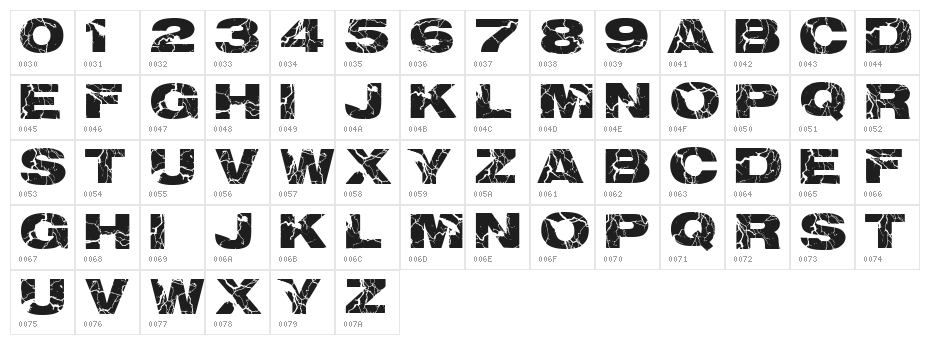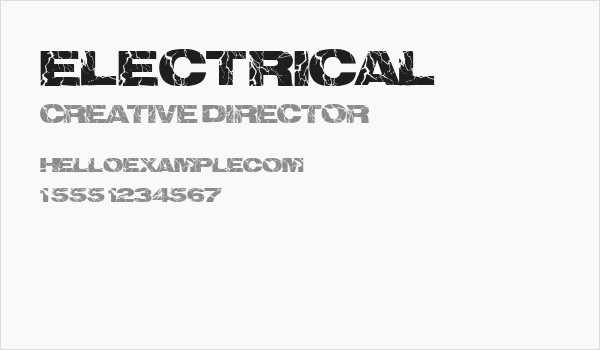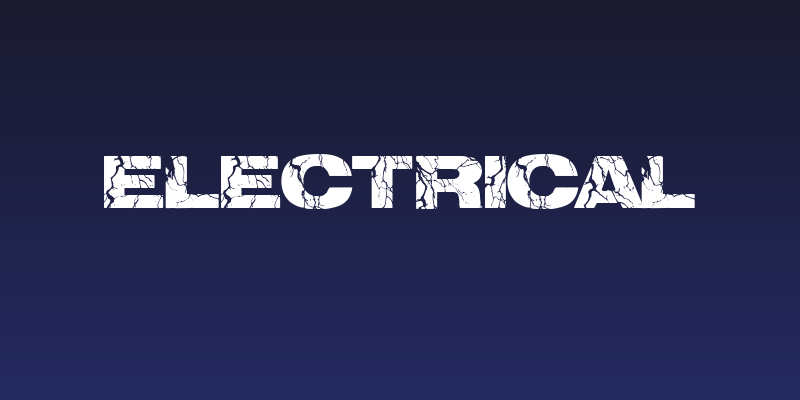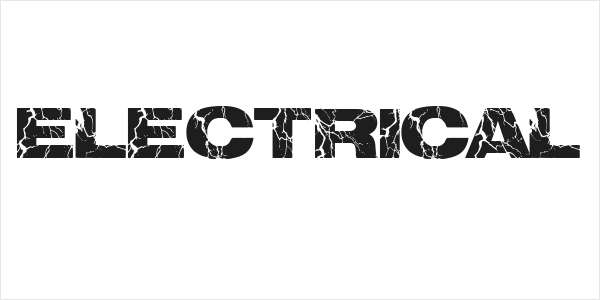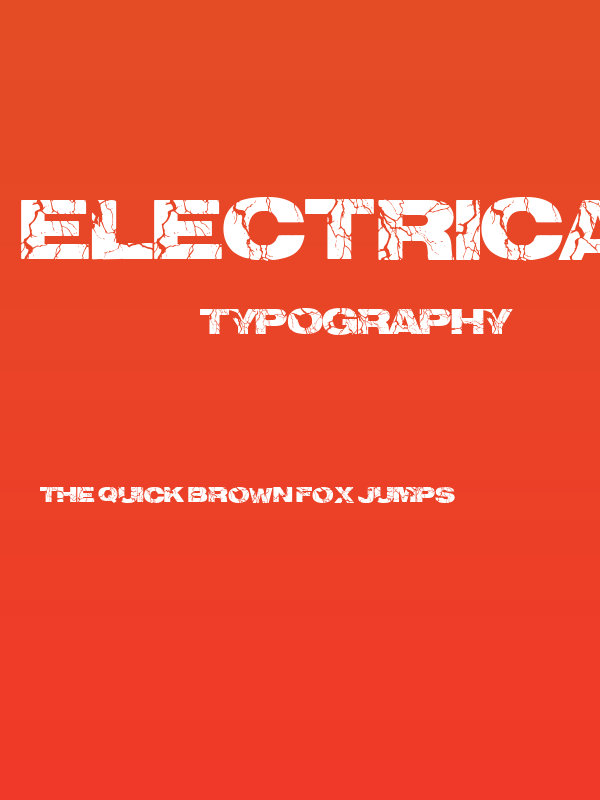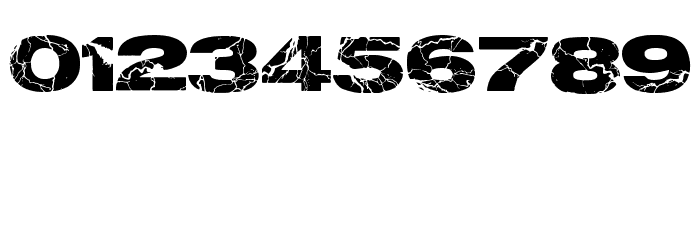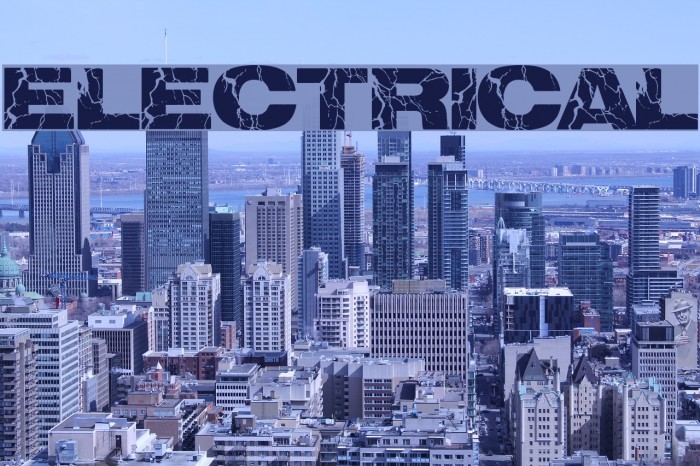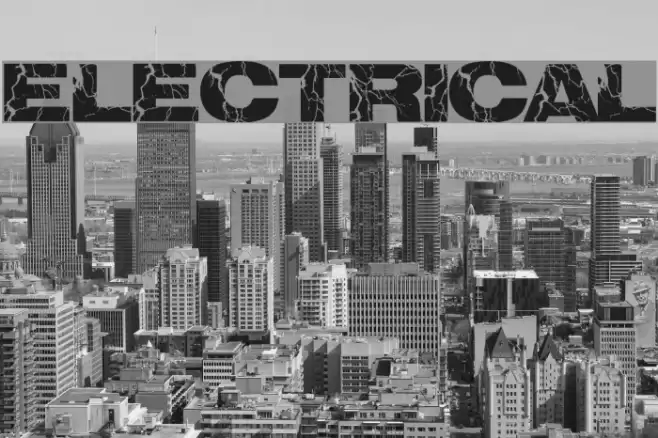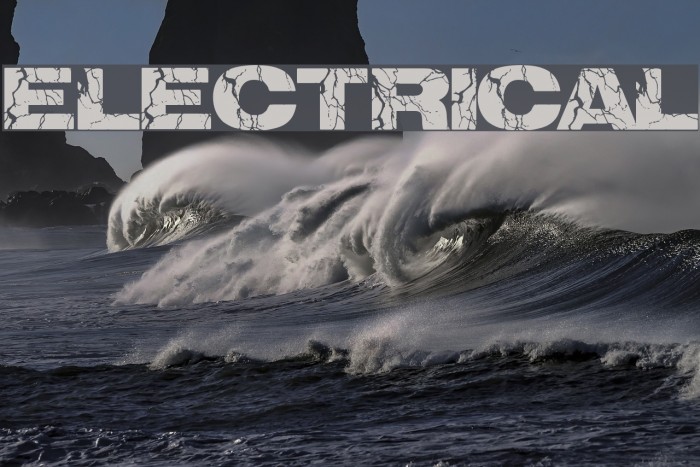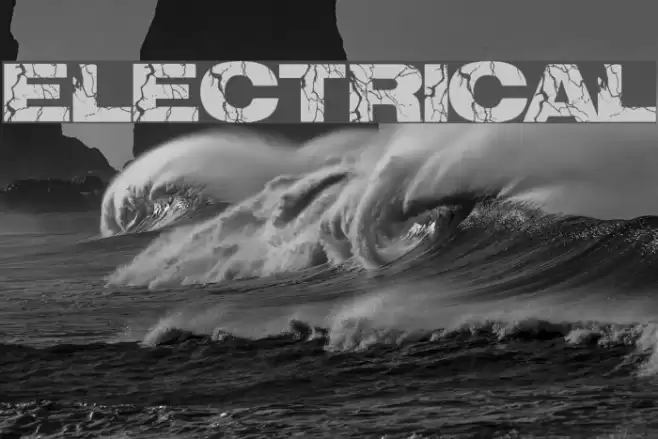
electrical Font
electrical Description
This font features a bold, distressed style with a cracked texture that gives it a rugged, edgy appearance. The characters are uppercase and numerals, each with a unique pattern of cracks and breaks, creating a sense of chaos and energy. The font's design is reminiscent of shattered glass or fractured surfaces, making it ideal for projects that require a strong, impactful visual statement. Its bold weight and high contrast ensure that it stands out in any design, while the decorative elements add a layer of complexity and interest.
| Proposed Projects | Perfect for album covers, posters, branding for extreme sports, or any design needing a bold, distressed look. |